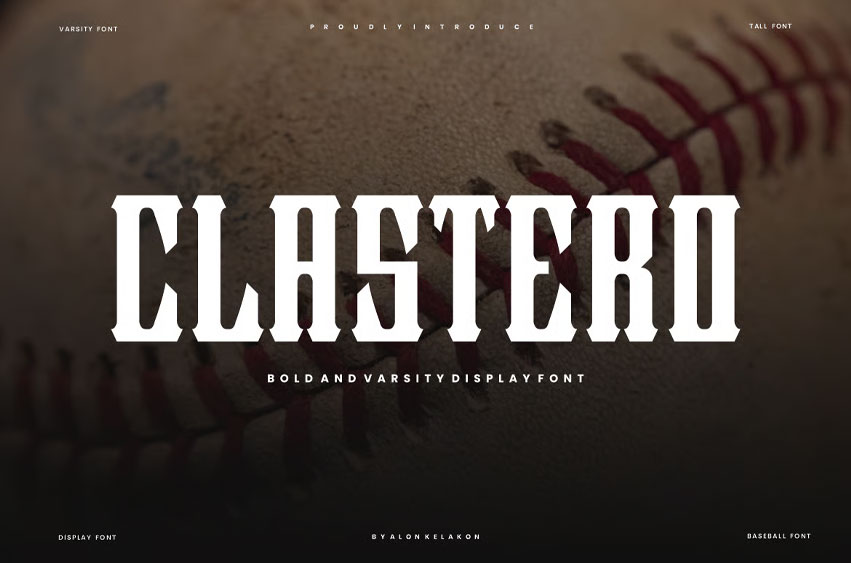
Clastero Font
Clastero Font is unique. Ready to use for your design, like labeling, movie scenes, posters, movie titles, gigs, album covers, logos, and much more.